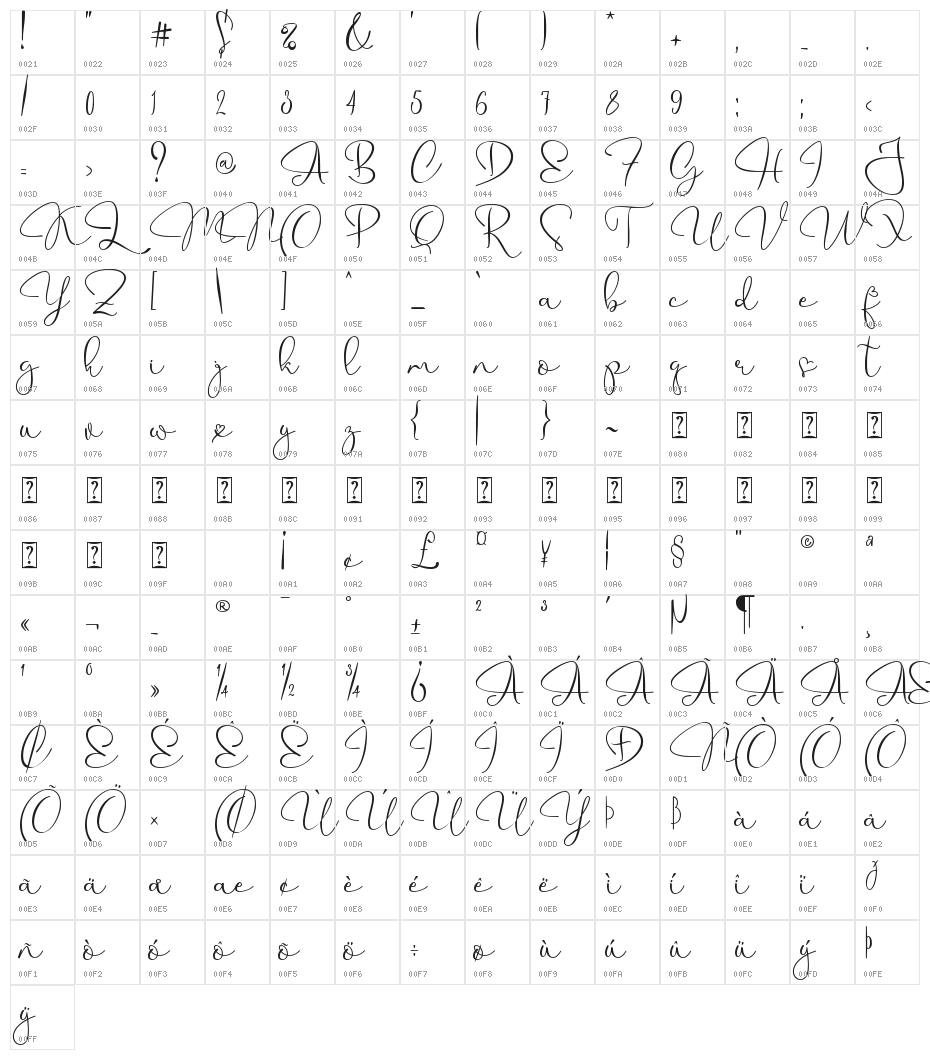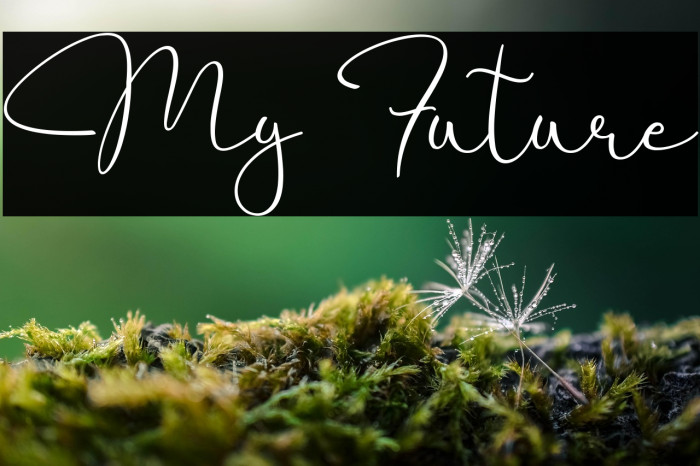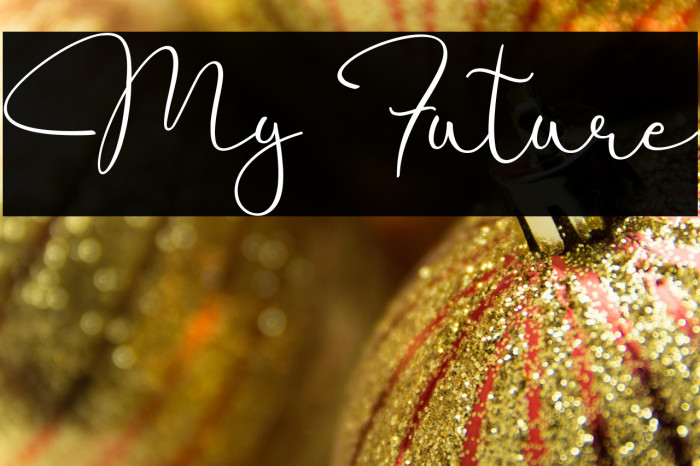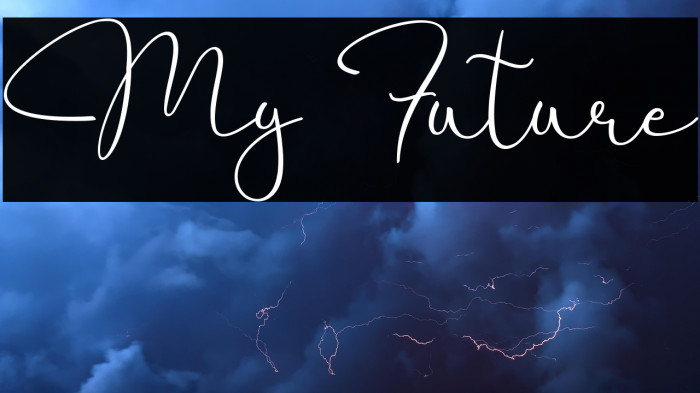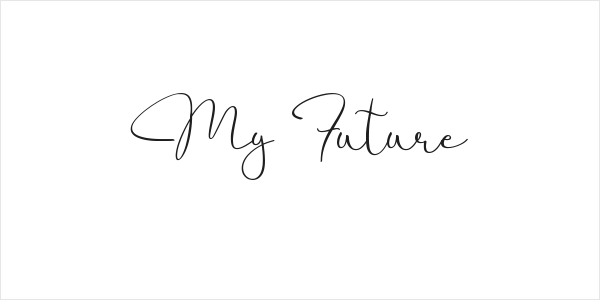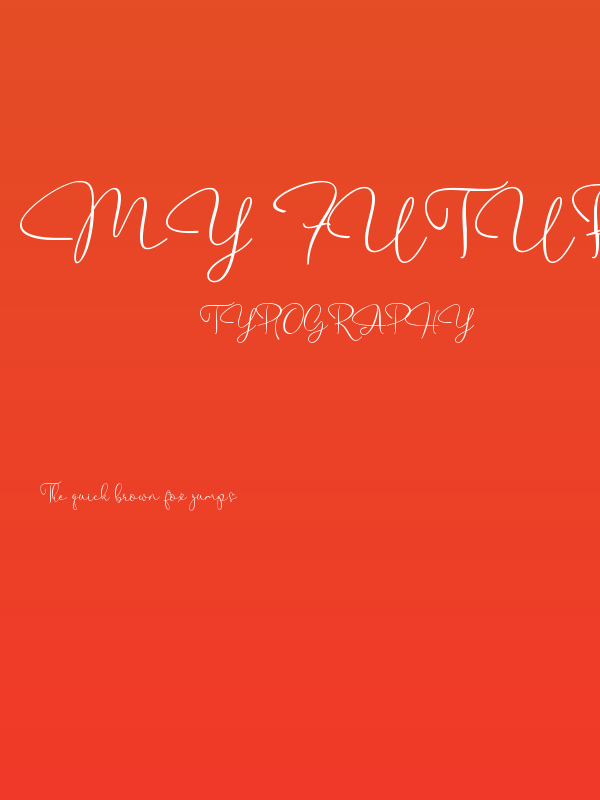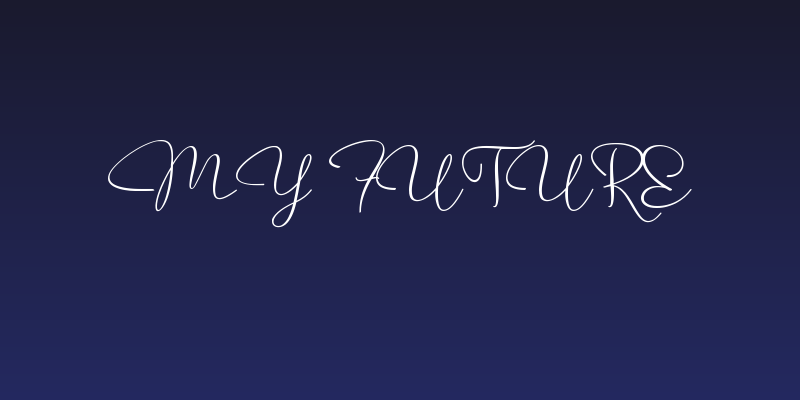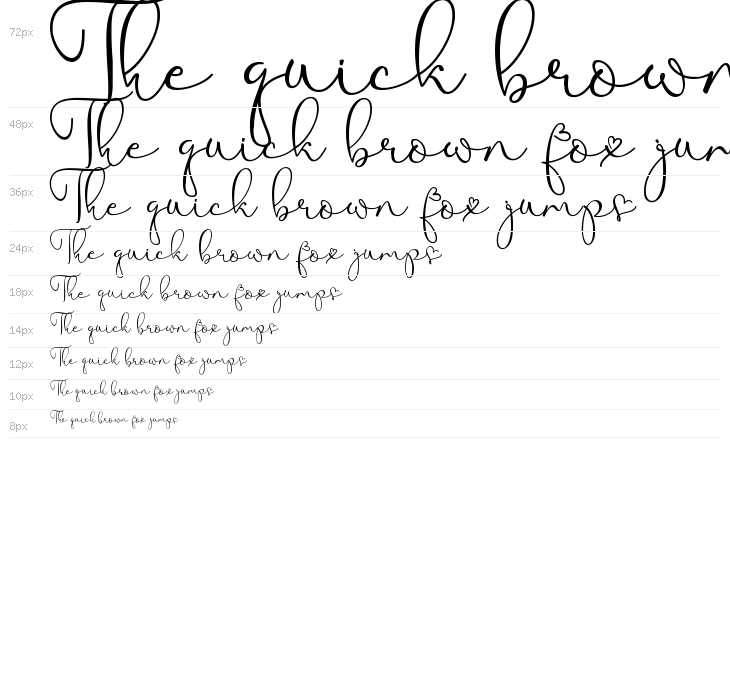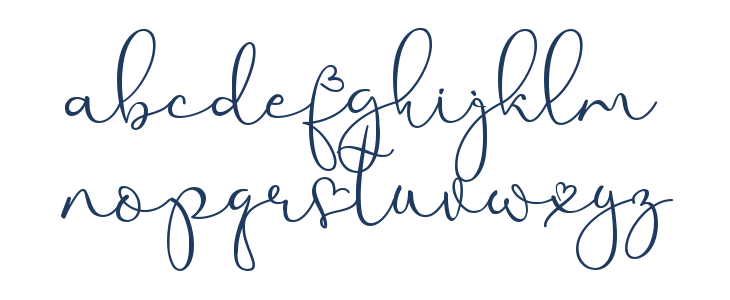
My Future Font
My Future Description
This font features an elegant, flowing script style that mimics the fluidity of natural handwriting. The uppercase letters are characterized by their intricate loops and swirls, giving them a sophisticated and artistic appearance. The lowercase letters maintain a consistent flow, with some characters featuring unique heart-shaped embellishments that add a playful touch. The numerals are clear and legible, with a slight slant that complements the overall cursive style. Special characters are creatively designed, maintaining the font's whimsical and decorative nature. This font is perfect for projects that require a personal, handwritten feel, such as invitations, greeting cards, and branding materials.